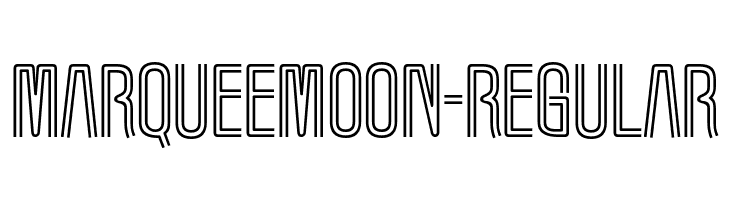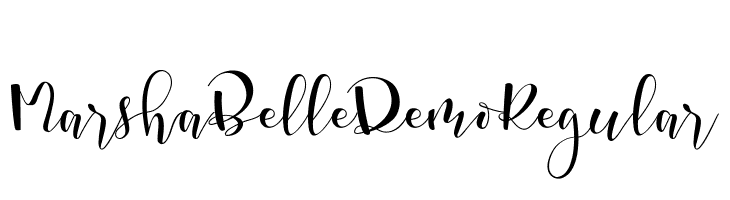
( Fonts by Manfred Klein. Free for private and charity use. Free for commercial with donation to organizations ) A whimsical and decorative font with intricate embellishments and playful design. डाउनलोड 98 डाउनलोड@WebFont
( Fonts by Maulana Creative ) A dynamic and flowing script font with elegant, cursive letterforms. डाउनलोड 105 डाउनलोड@WebFont
( Woodcutter - woodcutter Manero - www.woodcutter.es ) A whimsical and illustrative font with cartoonish, bold characters. डाउनलोड 49 डाउनलोड@WebFont
( Fonts by 177Studio ) A bold, decorative font with playful swirls and curves, perfect for creative projects. डाउनलोड 55 डाउनलोड@WebFont
( imagex - www.imagex-fonts.com ) A bold, distressed font with a grunge texture and condensed width. डाउनलोड 300 डाउनलोड@WebFont
( Fonts by Woodcutter ) A bold, distressed font with a rugged, vintage aesthetic. डाउनलोड 21 डाउनलोड@WebFont
( Chequered Ink - chequered.ink/ ) A bold, geometric font with a modern and futuristic aesthetic. डाउनलोड 559 डाउनलोड@WebFont